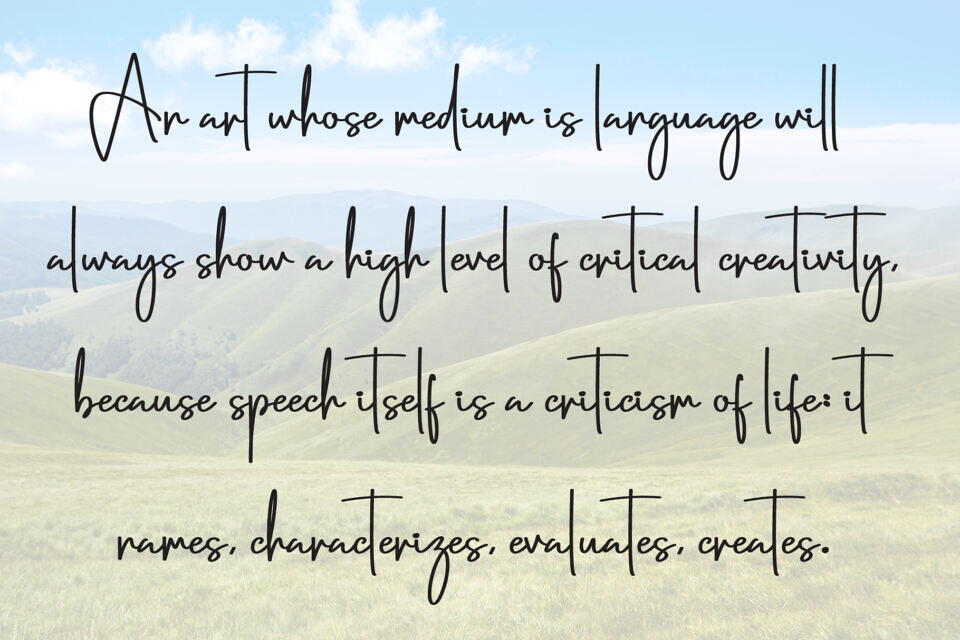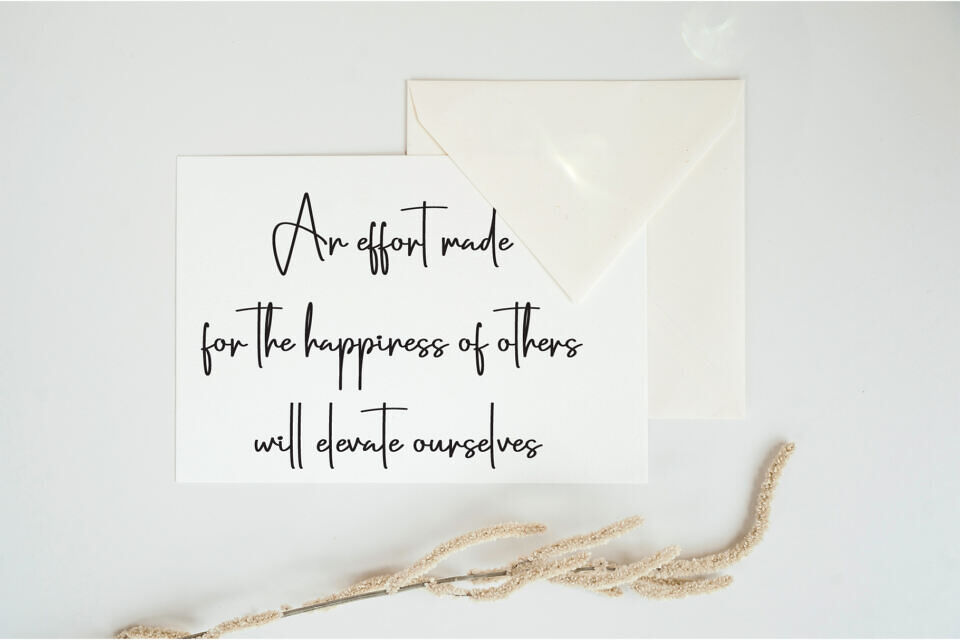
Botanical Font by scratchones is a graceful calligraphy typeface featuring 188 glyphs and 194 characters.
Its elegant, handwritten style is ideal for wedding invitations, social media posts, product packaging, and branding projects.